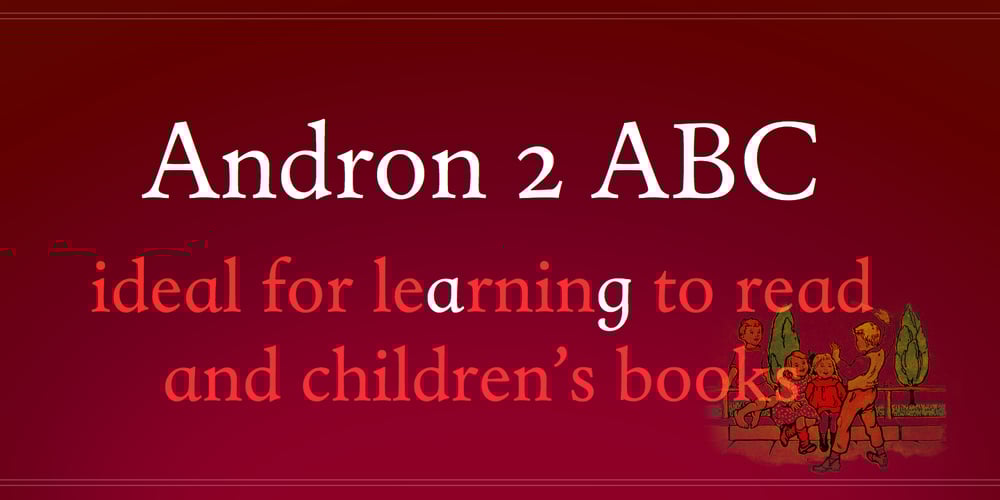
Andron 2 ABC Font Family was designed by Andreas Stötzner and published by SIAS. Andron 2 ABC contains 4 styles and family package options. Andron 2 ABC is a product developed especially for children’s literature. It is an ideal choice for primers and other books for the age when children are learning to read. The typeface has the same peak typographic quality as any other font of the praised Andron series—the very best is just good enough for our kids, is it not? As a difference from the normal glyph set (as in Andron 1 Latin or Andron Mega), the letters a, g and y have those simpler single-story shapes that resemble the forms usually taught in writing, which are sometimes called infant letterforms. Now, Andron 2 ABC is available in a full four-font family set.